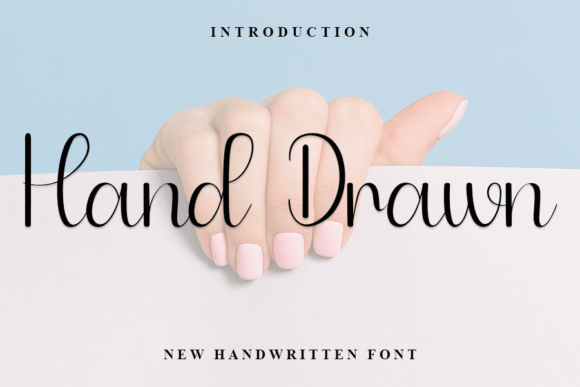
Discover the Magic of Handdrawn Font: Elevate Your Creative Projects with Elegance
In the world of typography, few fonts manage to capture the essence of elegance and creativity as effortlessly as the Handdrawn font. This magical script font, carefully crafted with a touch of sophistication, has become a go-to choice for designers, artists, and DIY enthusiasts alike. Whether you’re looking to elevate your Instagram posts, create stunning calligraphy scripts, or bring a personal touch to your DIY projects, Handdrawn font is the perfect tool to turn your creative ideas into true pieces of art.
What is Handdrawn Font?
Handdrawn font is a unique and exquisite script font that embodies the beauty of handwritten calligraphy. With its delicate strokes, intricate details, and flowing curves, this font exudes a sense of elegance and refinement. Each letter has been meticulously crafted to create a sense of movement and fluidity, making it perfect for a wide range of creative applications.
What sets Handdrawn font apart is its versatility. Whether you’re looking to create stunning headlines, elegant body text, or beautiful calligraphy scripts, this font adapts seamlessly to any design or project. Its magical touch can instantly elevate your work, adding a personal and artistic flair that’s sure to captivate your audience.
The Many Uses of Handdrawn Font
One of the standout features of Handdrawn font is its incredible versatility. This font can be used in a multitude of creative projects, including:
- Instagram Posts: Elevate your social media game with stunning, eye-catching text that adds a personal touch to your posts.
- Calligraphy Scripts: Create beautiful, handcrafted calligraphy scripts for special occasions, events, or everyday use.
- DIY Projects: Add a touch of elegance to your DIY projects, such as handmade cards, invitations, or art pieces.
- Branding and Packaging: Use Handdrawn font to create unique and memorable branding and packaging designs that stand out from the crowd.
- Stationery and Lettering: Create beautiful stationery, letters, and notes that showcase your personal style and creativity.
The Benefits of Using Handdrawn Font
So why choose Handdrawn font for your creative projects? Here are just a few benefits of using this magical script font:
- Elegance and Sophistication: Add a touch of elegance and refinement to your designs with Handdrawn font’s delicate strokes and intricate details.
- Versatility: Use Handdrawn font in a wide range of creative projects, from social media posts to DIY projects and branding designs.
- Easy to Read: Despite its intricate details, Handdrawn font is surprisingly easy to read, making it perfect for body text and longer passages.
- Unique and Memorable: Stand out from the crowd with Handdrawn font’s unique and memorable design that’s sure to leave a lasting impression.
Tips for Using Handdrawn Font
To get the most out of Handdrawn font, here are a few tips to keep in mind:
- Experiment with Sizes: Play around with different font sizes to create visual interest and hierarchy in your designs.
- Mix and Match: Combine Handdrawn font with other fonts to create a unique and visually appealing typography scheme.
- Pay Attention to Spacing: Make sure to leave enough space between letters and lines to create a clean and elegant design.
- Use it Sparingly: Use Handdrawn font sparingly to create emphasis and add a touch of elegance to your designs.
In conclusion, Handdrawn font is a magical script font that can elevate any creative project with its touch of elegance and sophistication. Whether you’re a designer, artist, or DIY enthusiast, this font is sure to inspire and delight. With its versatility, ease of use, and unique design, Handdrawn font is the perfect tool to turn your creative ideas into true pieces of art.